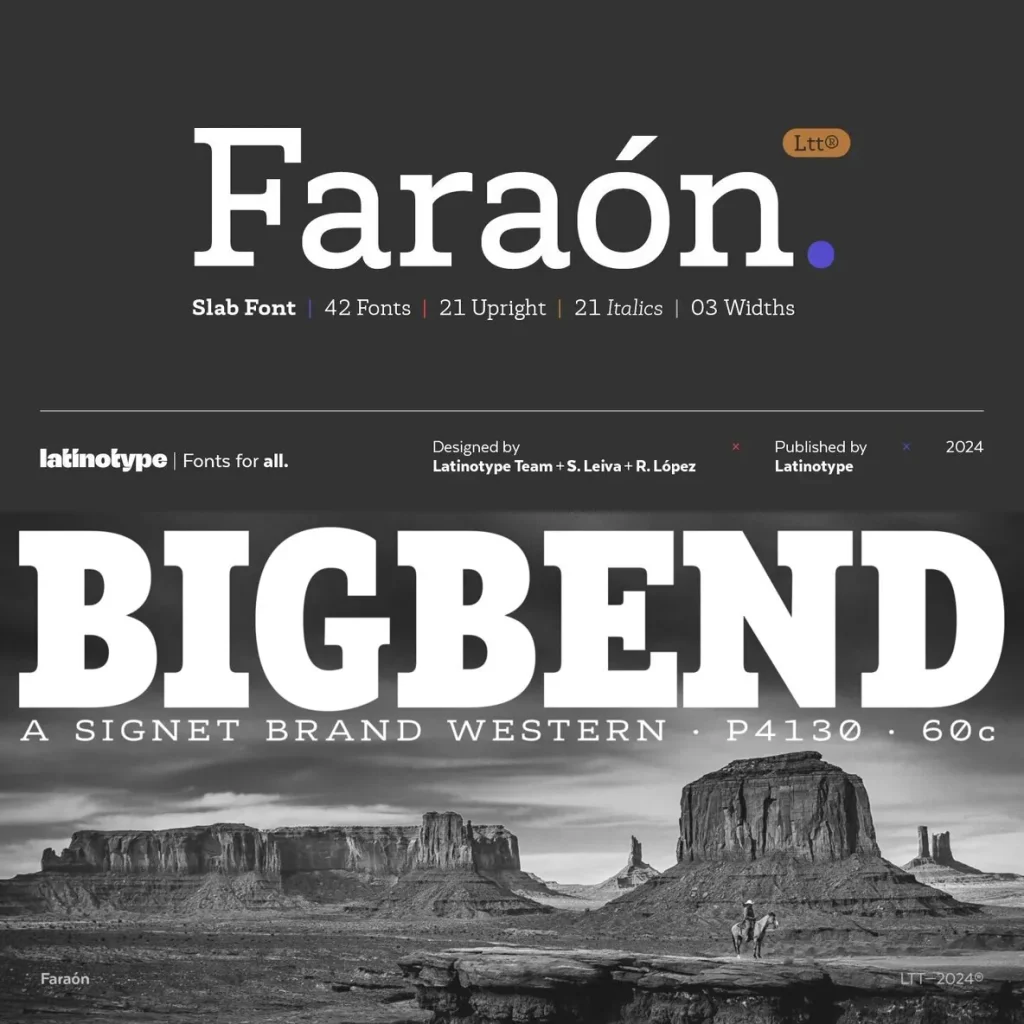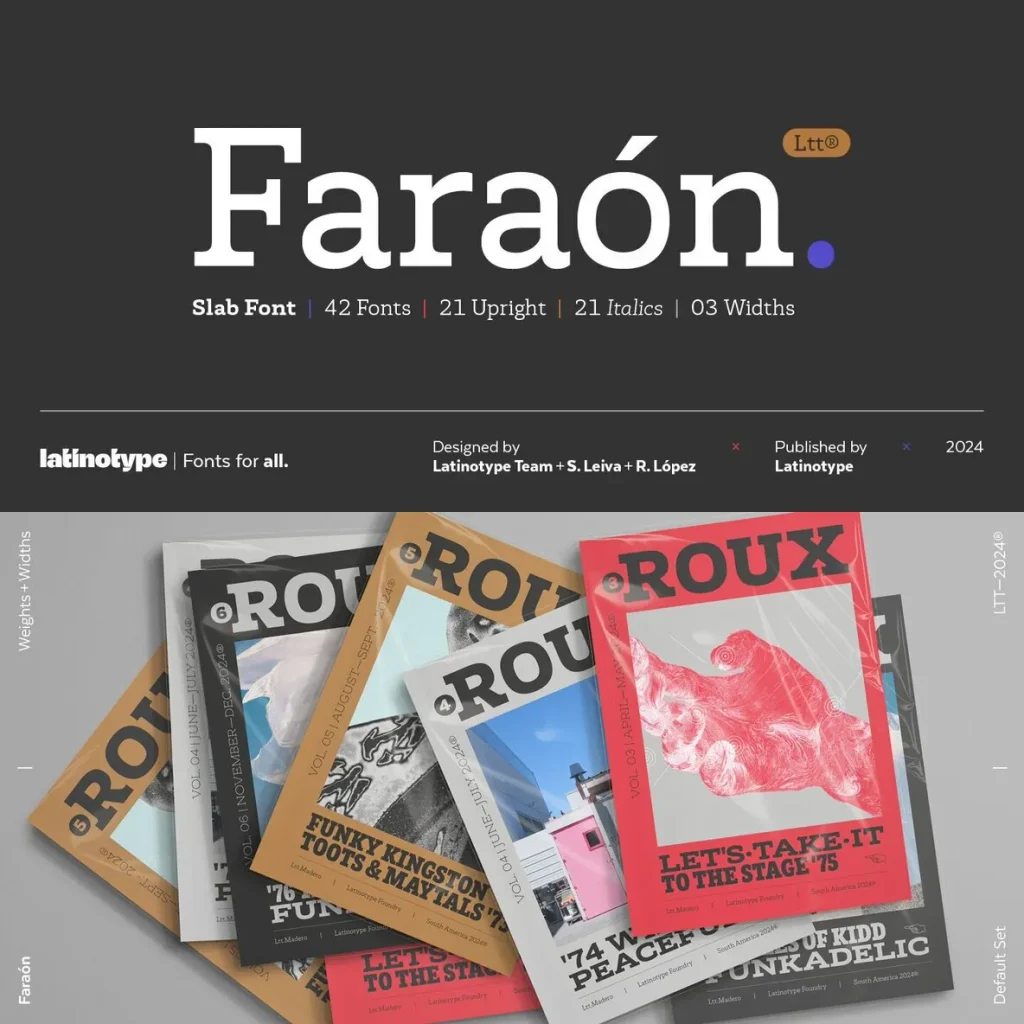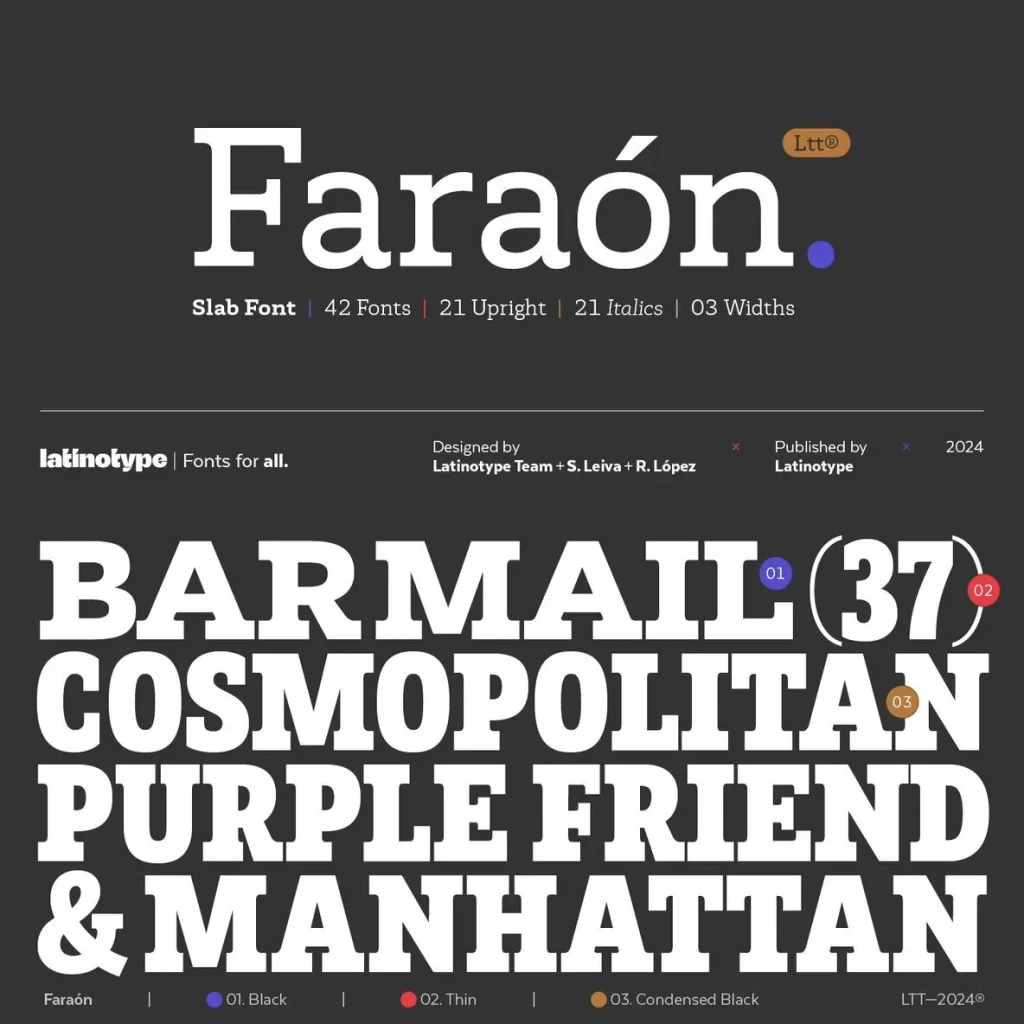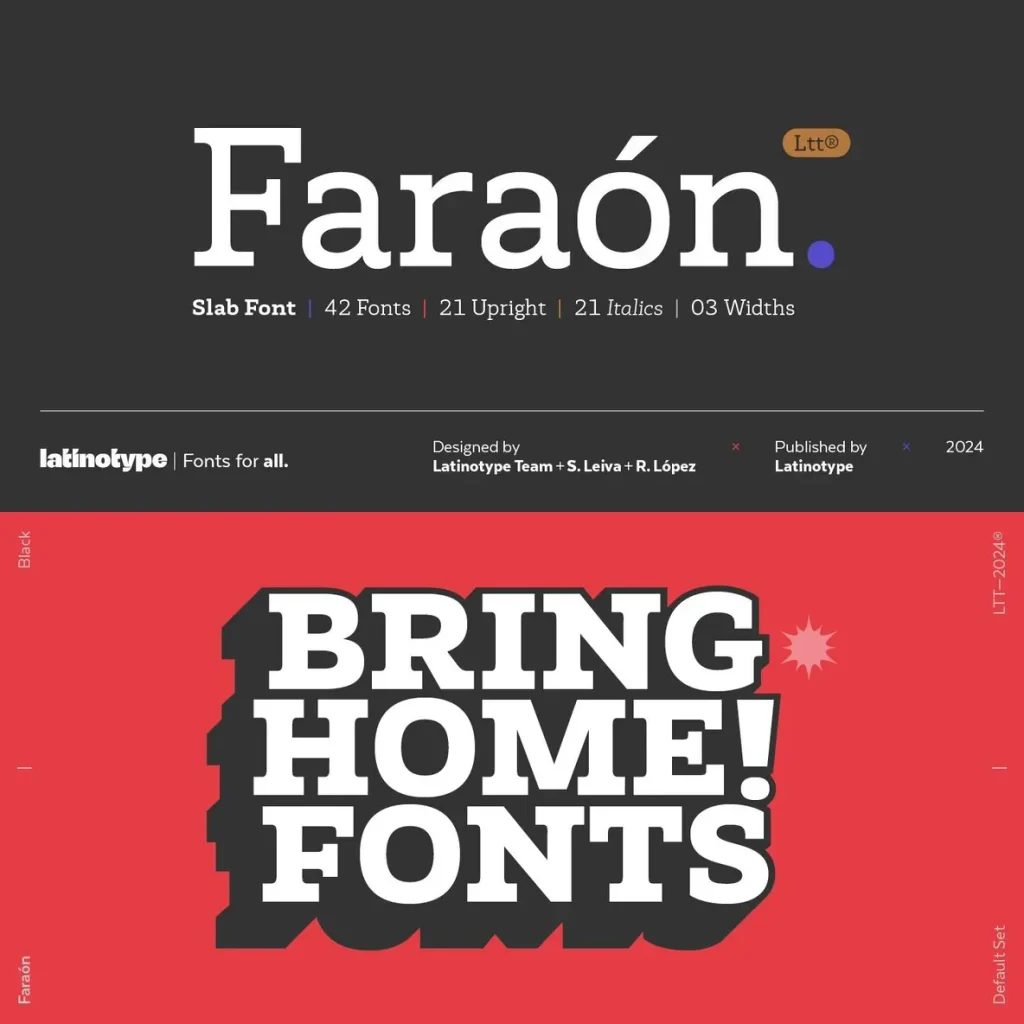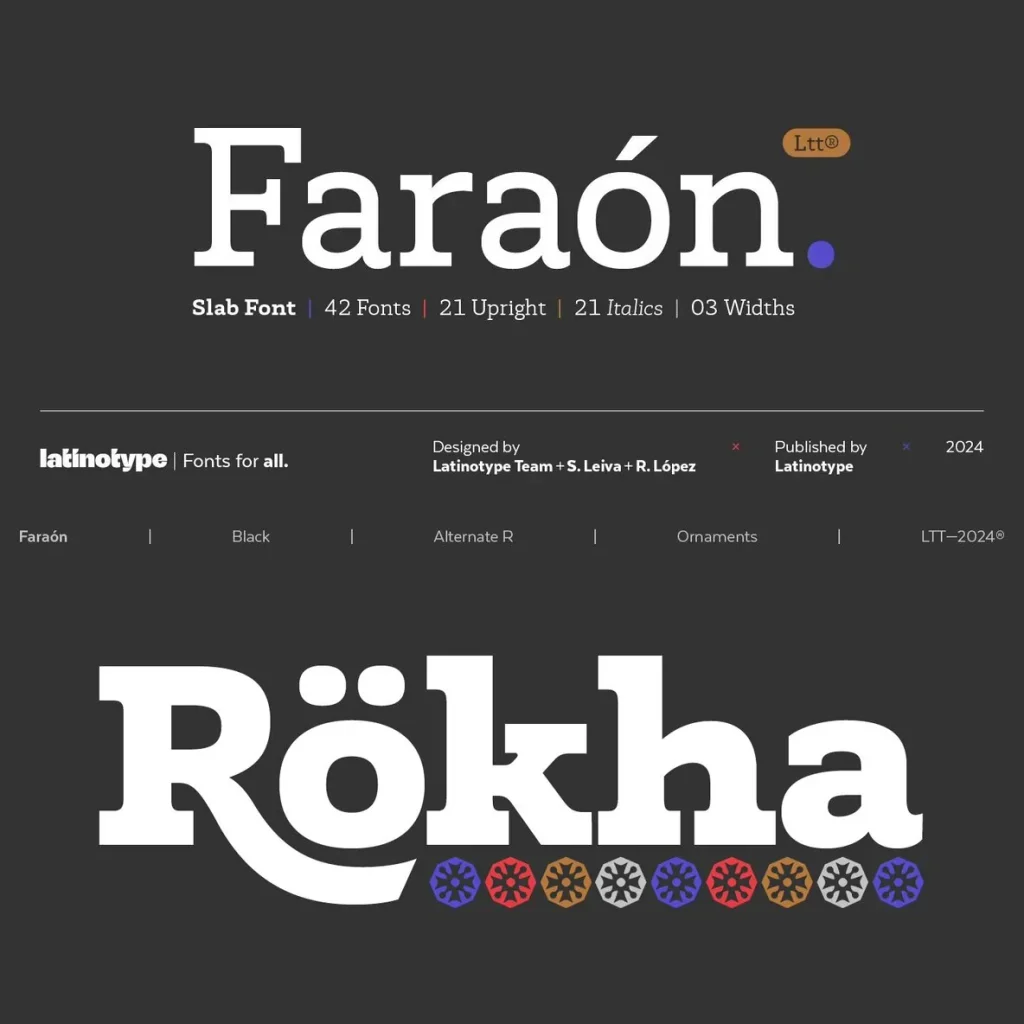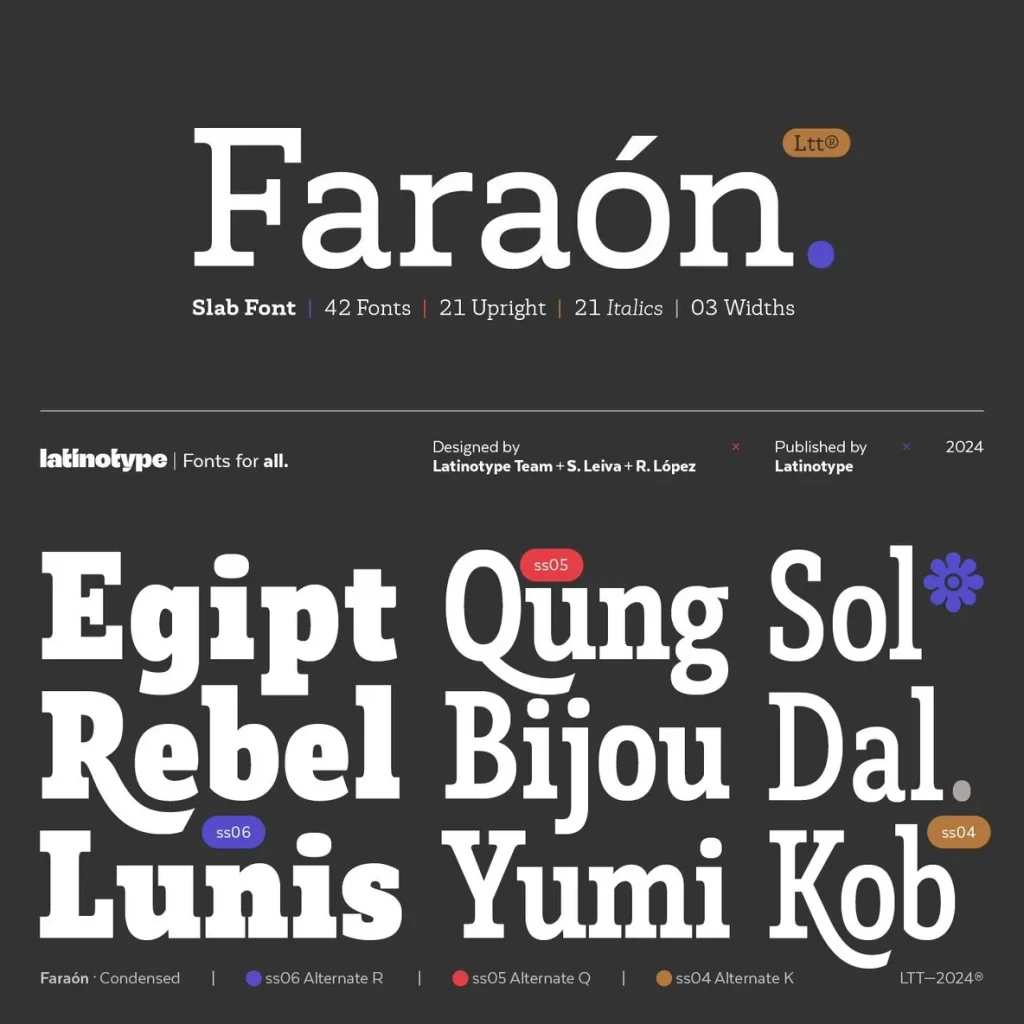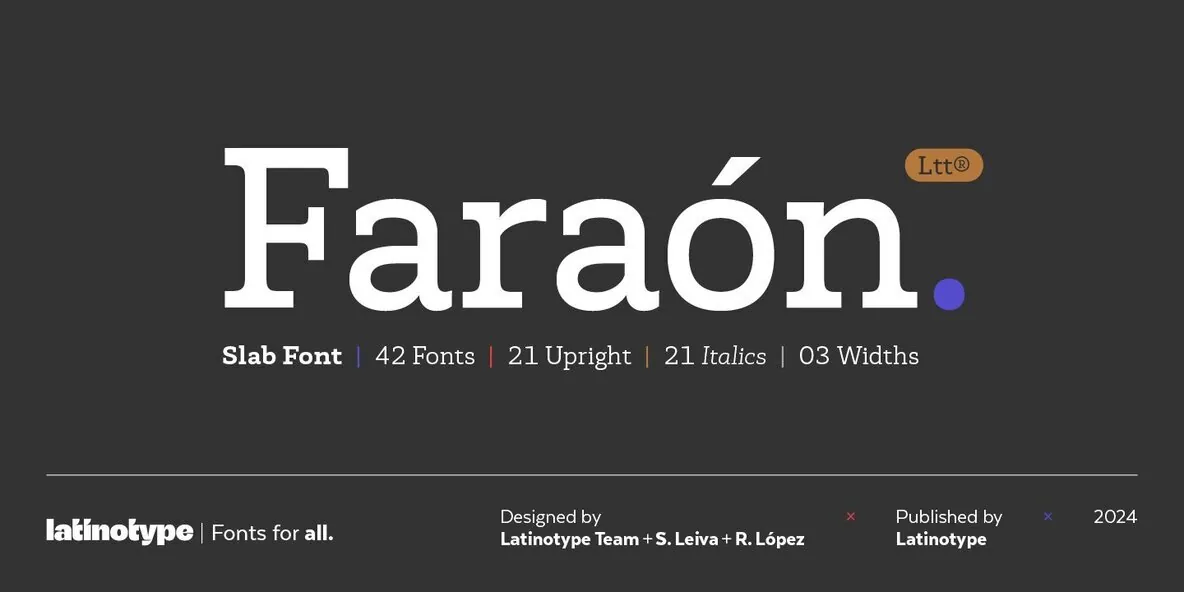
Faraón Typeface: Tradition with Versatile Character
Faraón embodies classic tradition while delivering a bold, approachable presence. Each letterform is thoughtfully crafted to balance strength and warmth, making it a reliable choice for designers seeking refined expression in both text and display applications.
The typeface is available in three distinct widths. This flexibility allows you to create engaging layouts with seamless typographic rhythm. Its robust variant system ensures legibility and functionality across a wide range of design contexts. Whether you are working on branding, editorial projects, or packaging, Faraón adapts to your creative vision effortlessly.
Key Features
Three width options for versatile layouts
Traditional influences paired with modern clarity
Variants designed for functional readability
Harmonious appearance for dynamic compositions